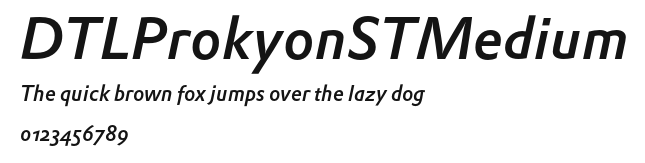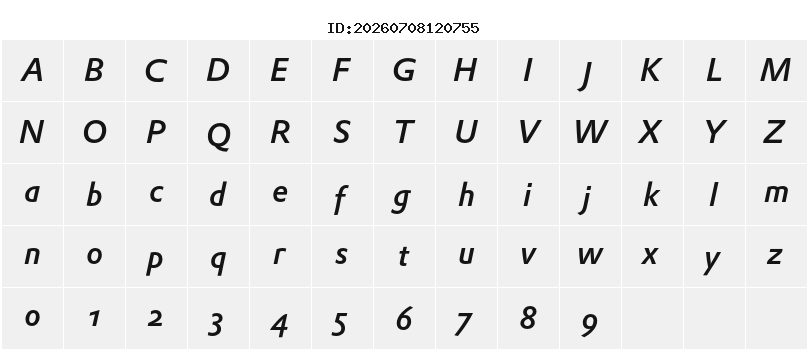
DTLProkyonSTMedium Preview
About DTLProkyonSTMedium.otf
DTLProkyonSTMedium.otf is a modern, elegant sans-serif font designed for ultimate readability and visual harmony. Perfect for branding, headlines, web design, and print materials.